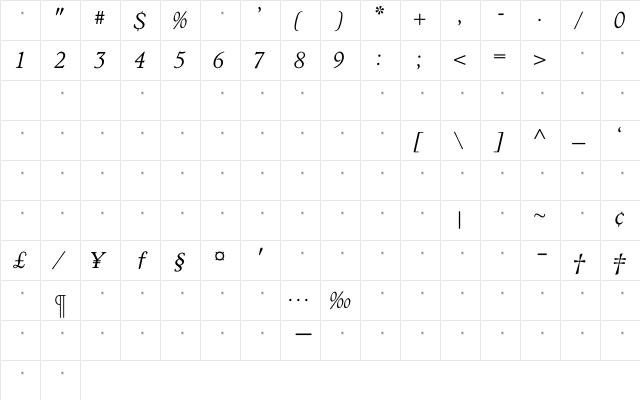
StanhopeLightItalicTab Regular
Design Context for StanhopeLightItalicTab
StanhopeLightItalicTab is a composed and adaptable typeface that performs quietly and consistently across a wide range of design contexts. The slanted form adds forward momentum and visual energy. Its slender proportions lend an understated elegance to any composition.
Pro Tip: Use StanhopeLightItalicTab for emphasis, pull quotes, and subheadings where its slanted energy can add rhythm to the layout.